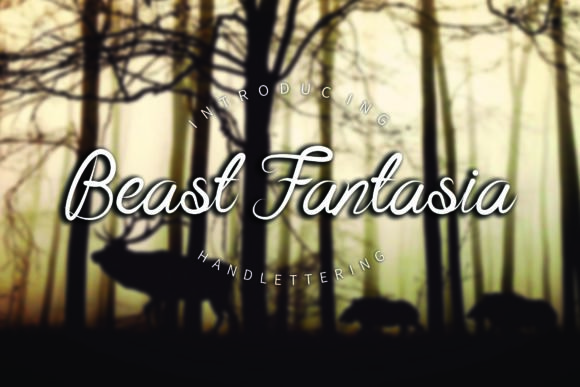
The Perfect Blend of Elegance and Whimsy: Introducing the Beast Fantasia Font
Have you ever stared at a blank canvas, searching for the perfect font to bring your design to life? The moment of inspiration is always fleeting, but when it strikes, it’s pure magic. For designers like you, finding the right font can be the difference between a good design and a great one.
Enter the Beast Fantasia Font, a modern script font that combines simple sophistication with a touch of whimsy. This versatile font is perfect for photography, signature, branding, magazines, logos, and much more. Its classy style adds a strong and unique touch to any design, making it a valuable asset for designers looking to elevate their work.
Beast Fantasia Font Key Features
- Font Family: Beast Fantasia is a fantasy font family with a wide range of styles, including bold, italic, and condensed variations.
- Unique Characteristics: Beast Fantasia features a distinctive, hand-drawn design with intricate details and flourishes, adding a touch of elegance and sophistication to any text.
Designer Review: Beast Fantasia Font
As a designer, I was excited to dive into the Beast Fantasia Font, and overall, I found it to be a unique and intriguing addition to any project. ✨ The font’s bold, fantasy-inspired style is perfect for anything from sci-fi novels to fantasy game titles.
The font’s weight and line variation offer a high degree of expressiveness, making it suitable for a wide range of design applications. I particularly appreciate the level of detail in the font’s design, from the intricate flourishes to the well-balanced proportions.
Some potential drawbacks include the font’s relatively limited character set ⚠️, which may require additional character mapping or substitution for certain languages or special characters. Additionally, the font’s bold style can be overwhelming in certain contexts, requiring careful consideration of the surrounding design elements.
- Unique fantasy-inspired style
- Bold, expressive weights and line variation
- Intricate design details
- Well-balanced proportions
Overall, I found the Beast Fantasia Font to be a valuable addition to any design project, offering a level of sophistication and whimsy that’s hard to find elsewhere.
Use the Beast Fantasia font for fantasy-themed designs, such as posters, flyers, and book covers.
Experiment with different font sizes and styles to create a unique and eye-catching design.
Combine the Beast Fantasia font with other fantasy-themed elements, such as dragons, unicorns, and magical symbols, to create a cohesive and immersive design.
Alternatives to Beast Fantasia Font
Pacifico is a beautiful, elegant script font that is perfect for creating a sense of luxury and sophistication. It’s ideal for use in branding, advertising, and editorial design. Pacifico has a more refined and polished look compared to Beast Fantasia Font, which is more whimsical and playful.
Carolyna Pro is a modern script font that is great for use in digital design, particularly in social media and e-commerce. It has a more relaxed and casual feel compared to Beast Fantasia Font, making it perfect for creating a friendly and approachable brand image. Carolyna Pro also has a wider range of weights and styles, making it highly customizable.
Great Vibes is a fun and energetic script font that is perfect for creating a lively and engaging atmosphere. It’s ideal for use in entertainment, fashion, and lifestyle design. Great Vibes has a more carefree and spontaneous feel compared to Beast Fantasia Font, which is more elegant and refined.